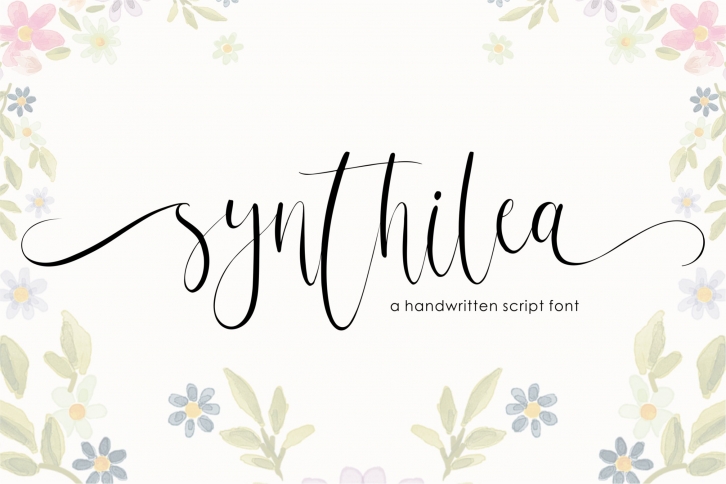
Synthilea is a great font that was designed by Qwrtype Foundry. Imagine the amount of combinations you can create using this font! The archive is 8.52 MB and it was released on October 20, 2022. Synthilea looks beautiful on wedding invitations, greeting cards, logos, posters, labels, t-shirt designs, logos, business cards and is perfect for use in ink or watercolor works, fashion, magazines, packaging and food menus, children's books and more!